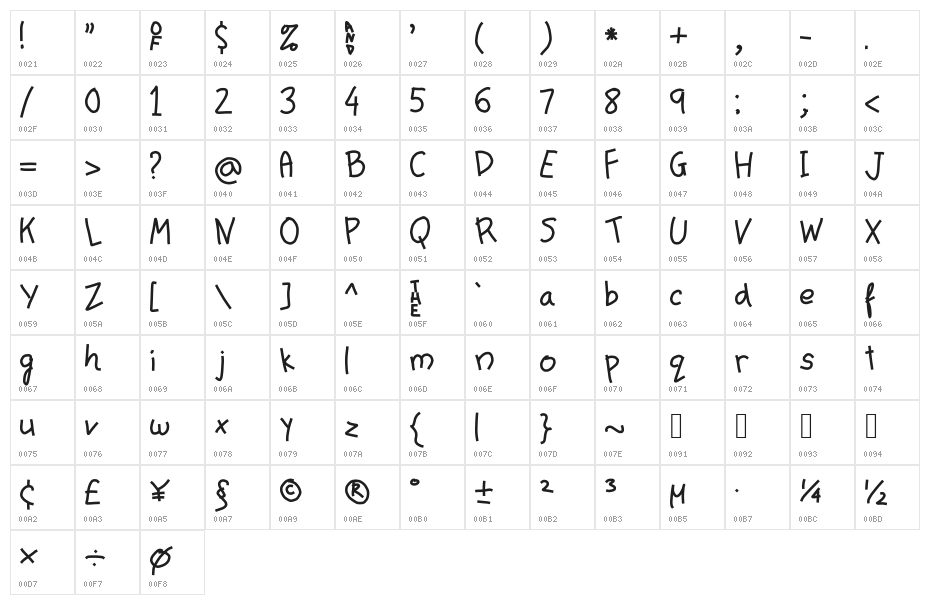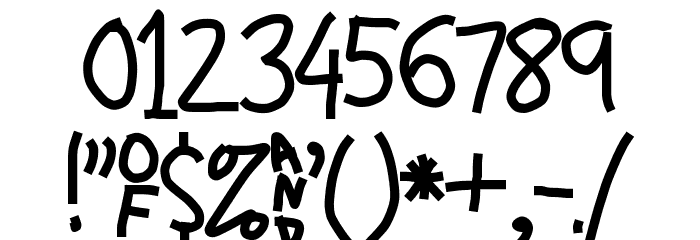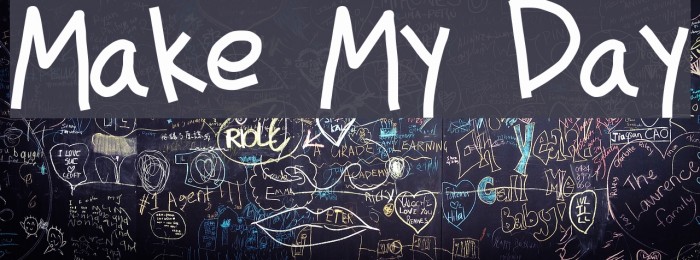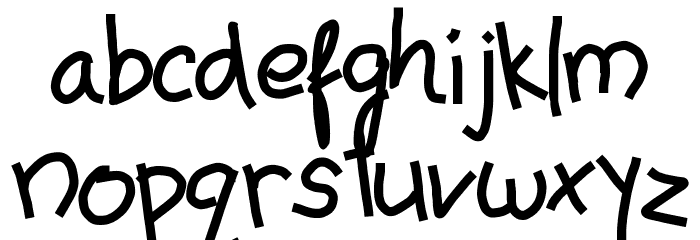
Make My Day Font
Make My Day Description
This font features a playful and casual handwritten style, characterized by its irregular strokes and slightly tilted letters. The uppercase and lowercase letters maintain a consistent flow, giving it a lively and informal appearance. The numerals and special characters follow the same whimsical style, making it suitable for projects that require a personal touch. The strokes are bold and confident, with a medium contrast that adds to its dynamic look. This font is perfect for creative projects that aim to convey a sense of fun and approachability.
| Overall Style | Casual, Playful |
| Use Case | Headlines, Logos, Informal Text |
| Proposed Projects | Ideal for greeting cards, children's books, playful branding, and social media graphics. |